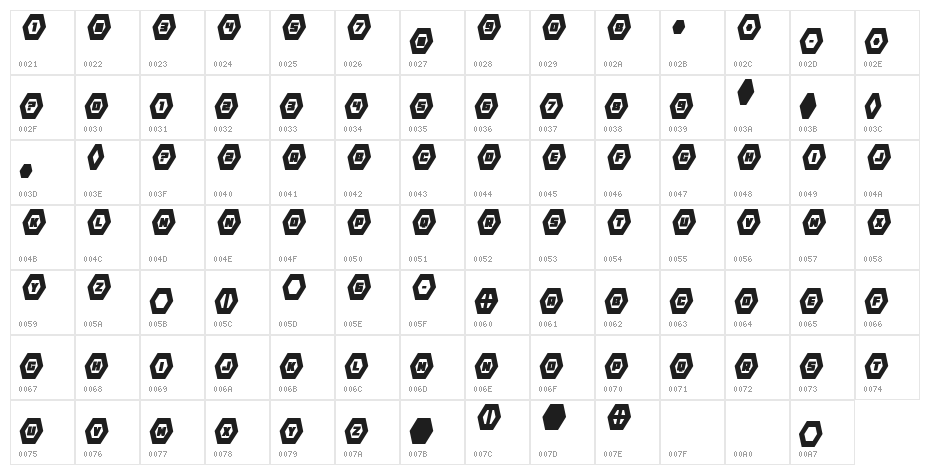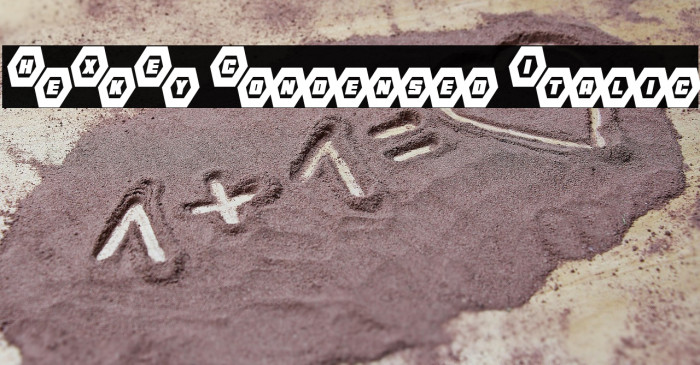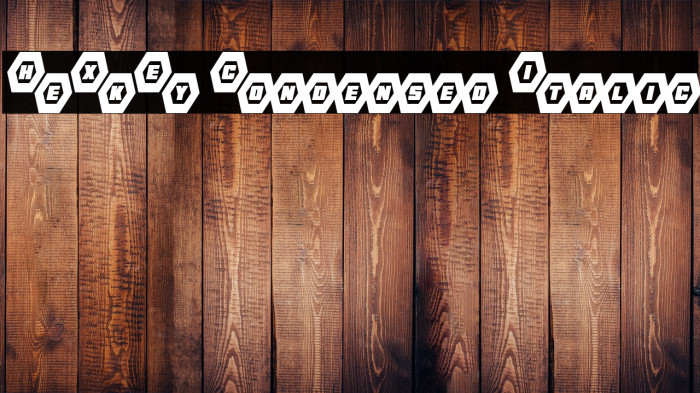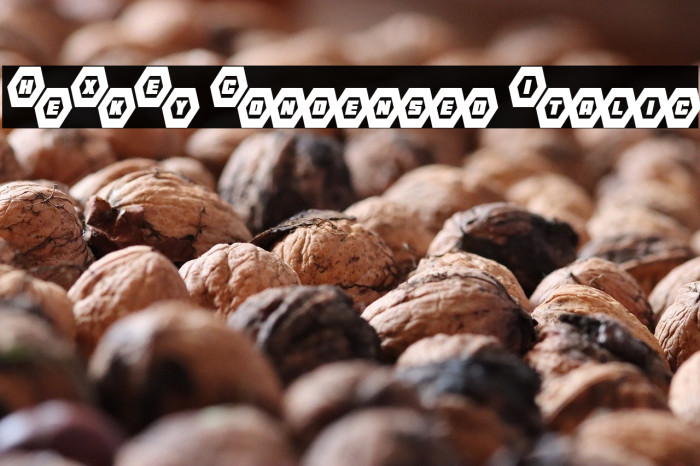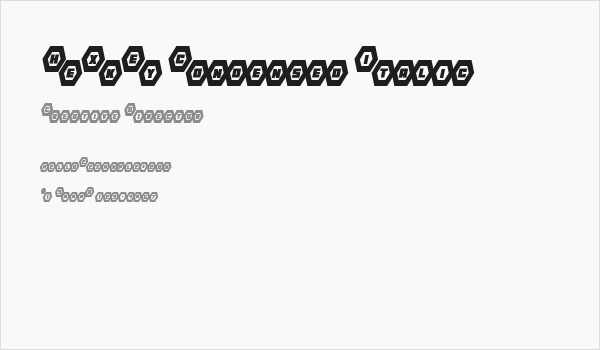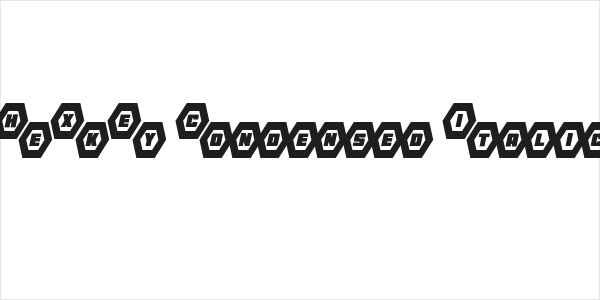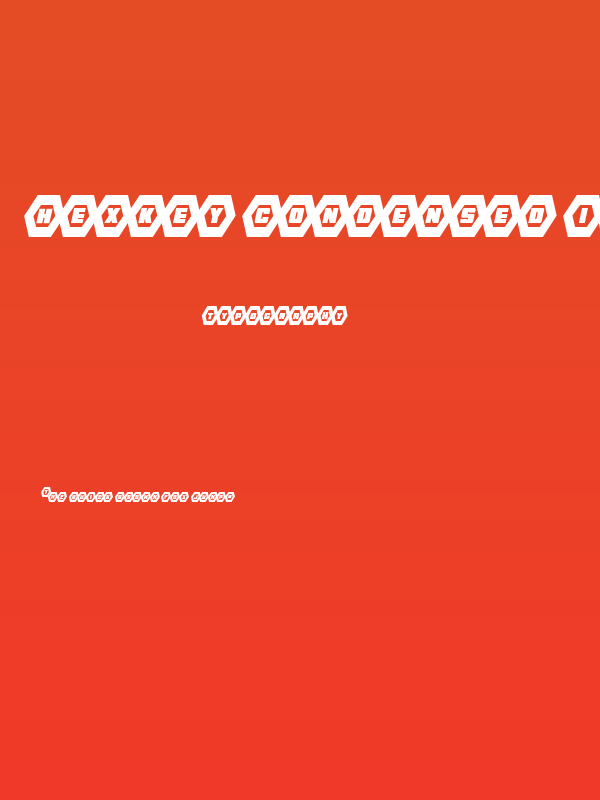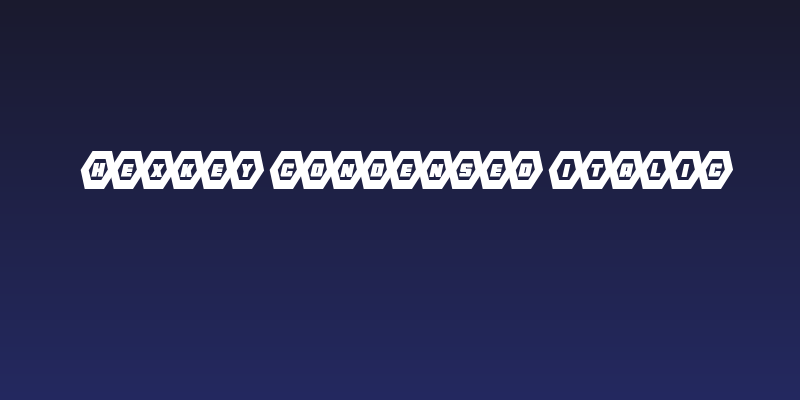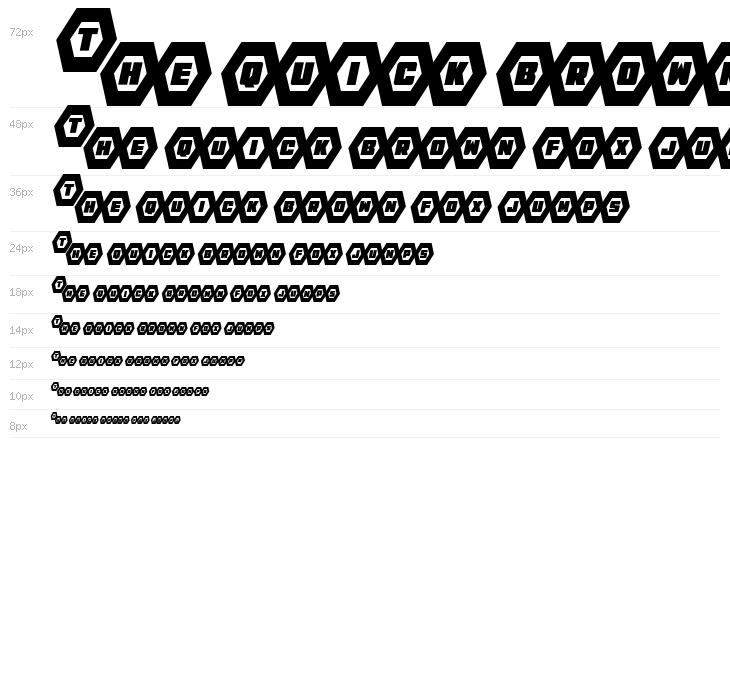
HeXkEy Condensed Italic Font
HeXkEy Condensed Italic Description
This font features a bold, geometric design with each character encapsulated in a hexagonal shape. The letters and numbers are italicized, giving a dynamic and forward-leaning appearance. The style is distinctly modern and futuristic, with a strong emphasis on angular forms and sharp edges. The condensed nature of the font allows for efficient use of space, making it suitable for headlines and impactful text. The high contrast between the thick outlines and the inner space of each character enhances readability while maintaining a unique aesthetic. This font is ideal for projects that require a bold statement or a tech-inspired look.
| Proposed Projects | Suitable for tech branding, futuristic posters, video game titles, and any project needing a bold, modern aesthetic. |